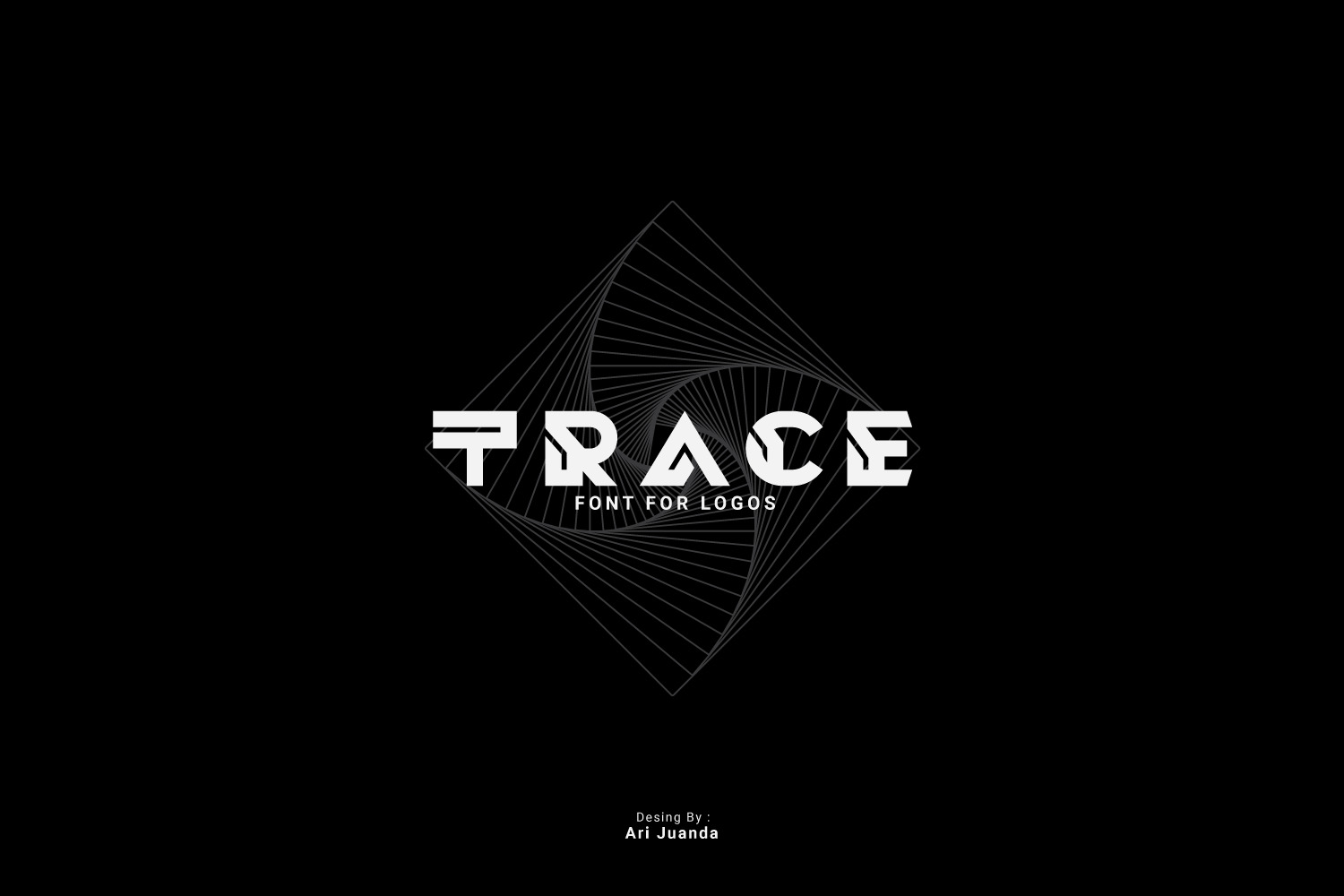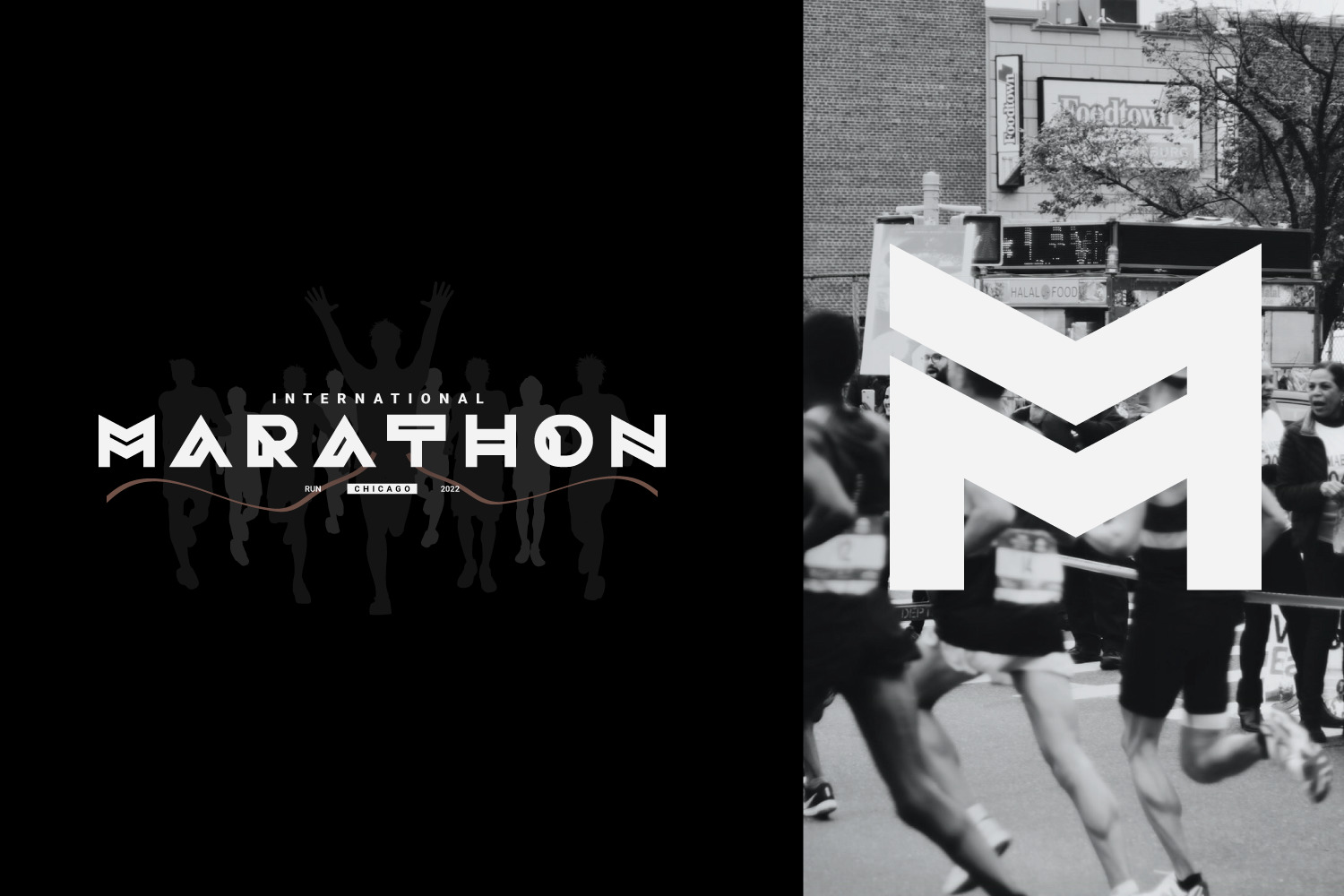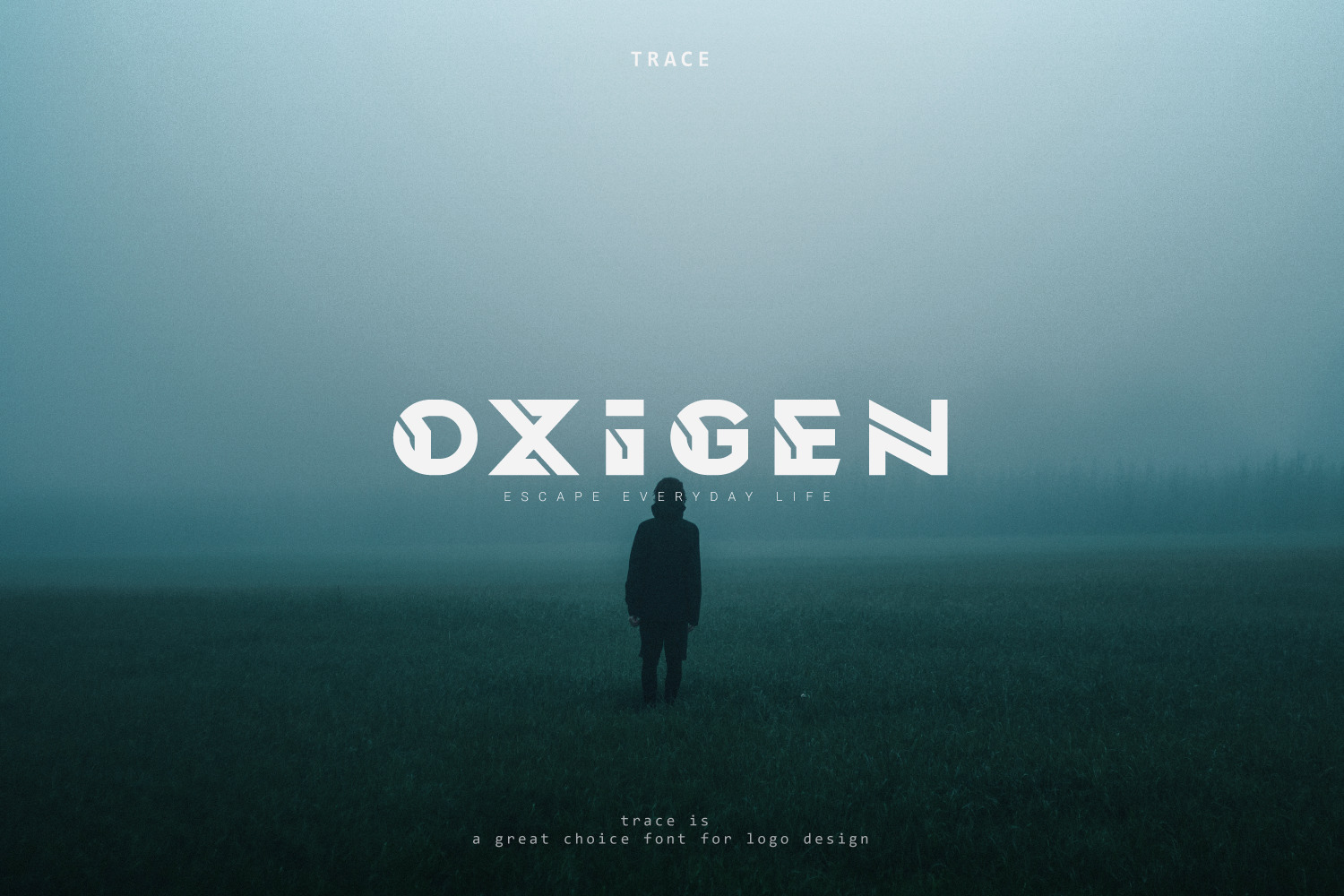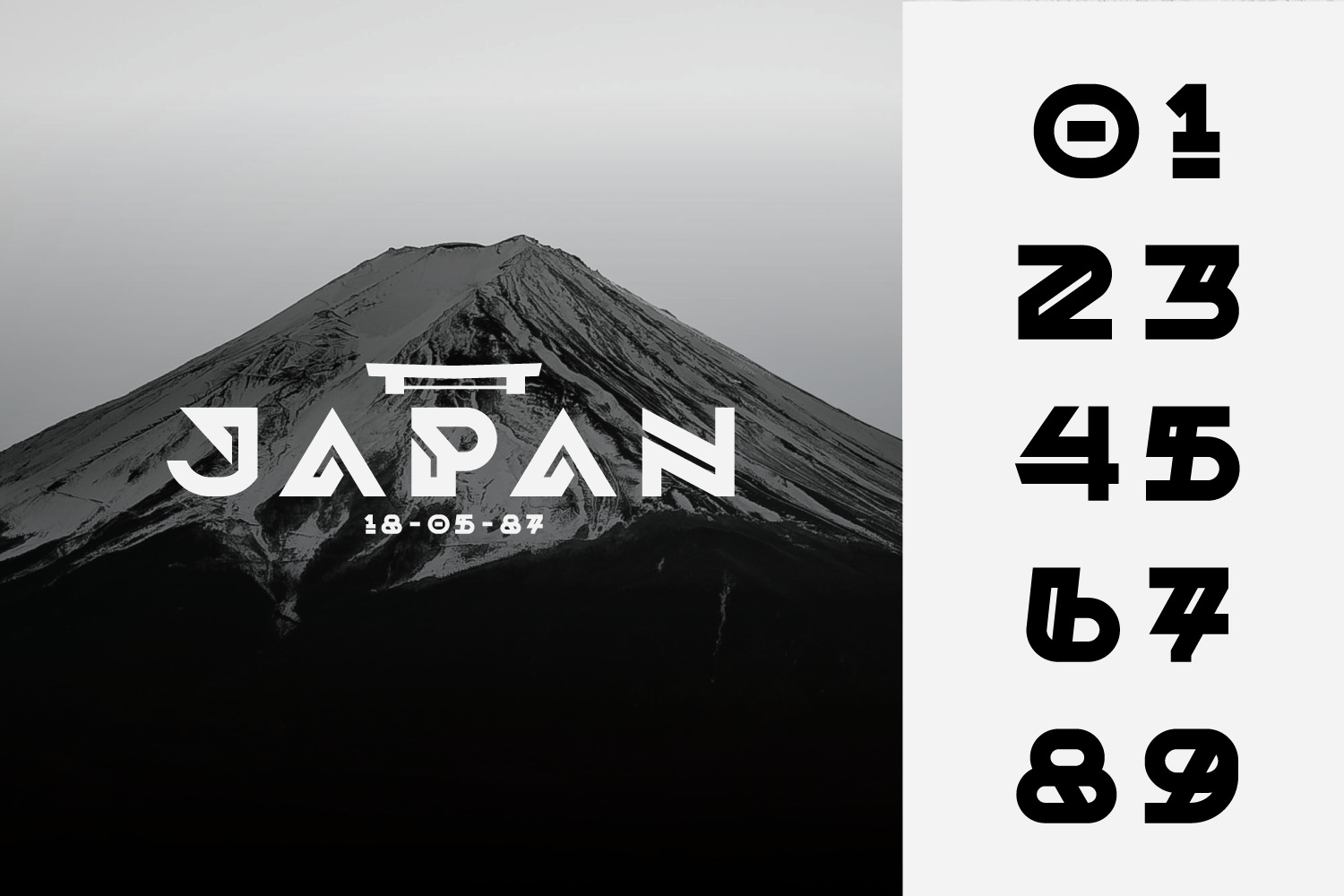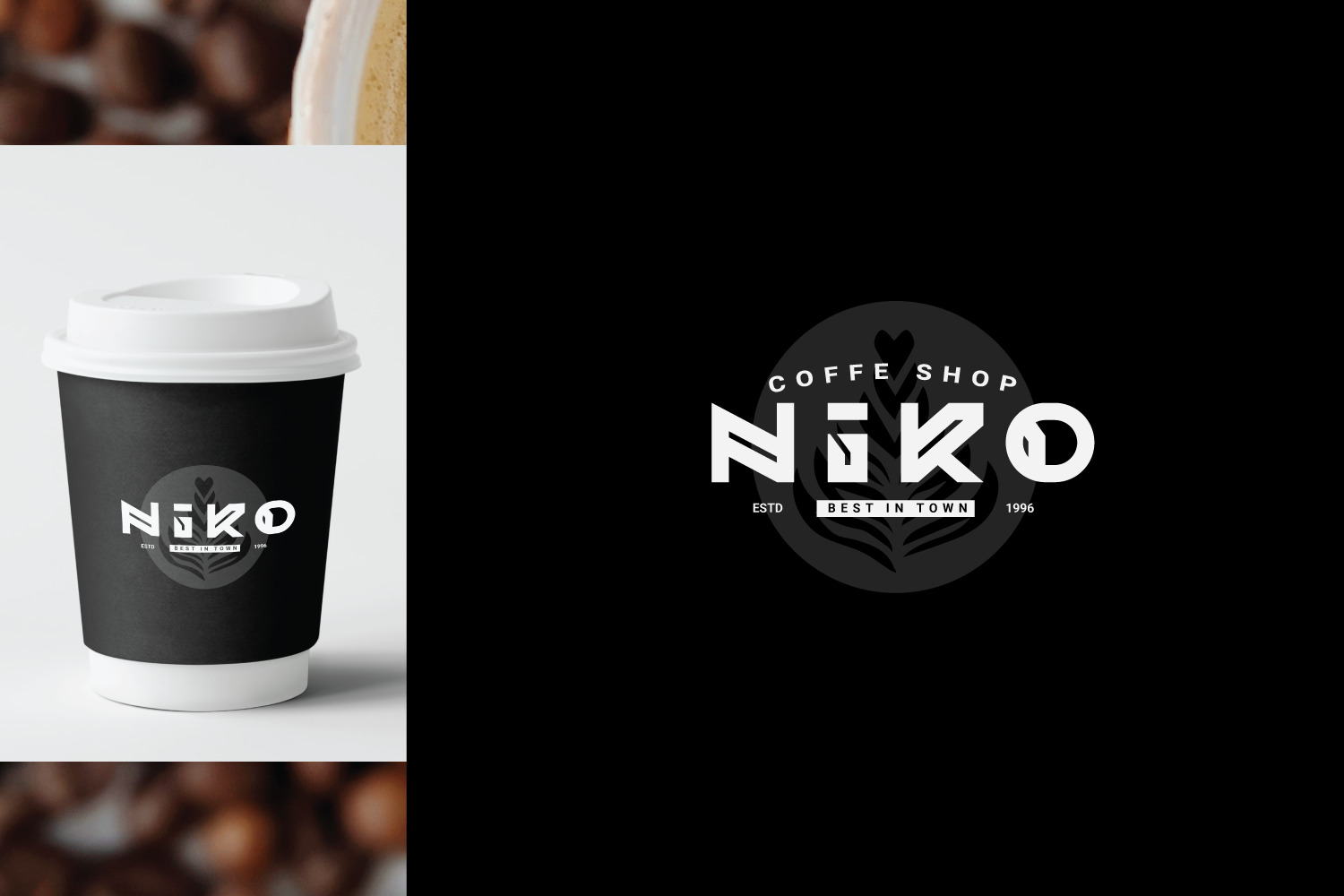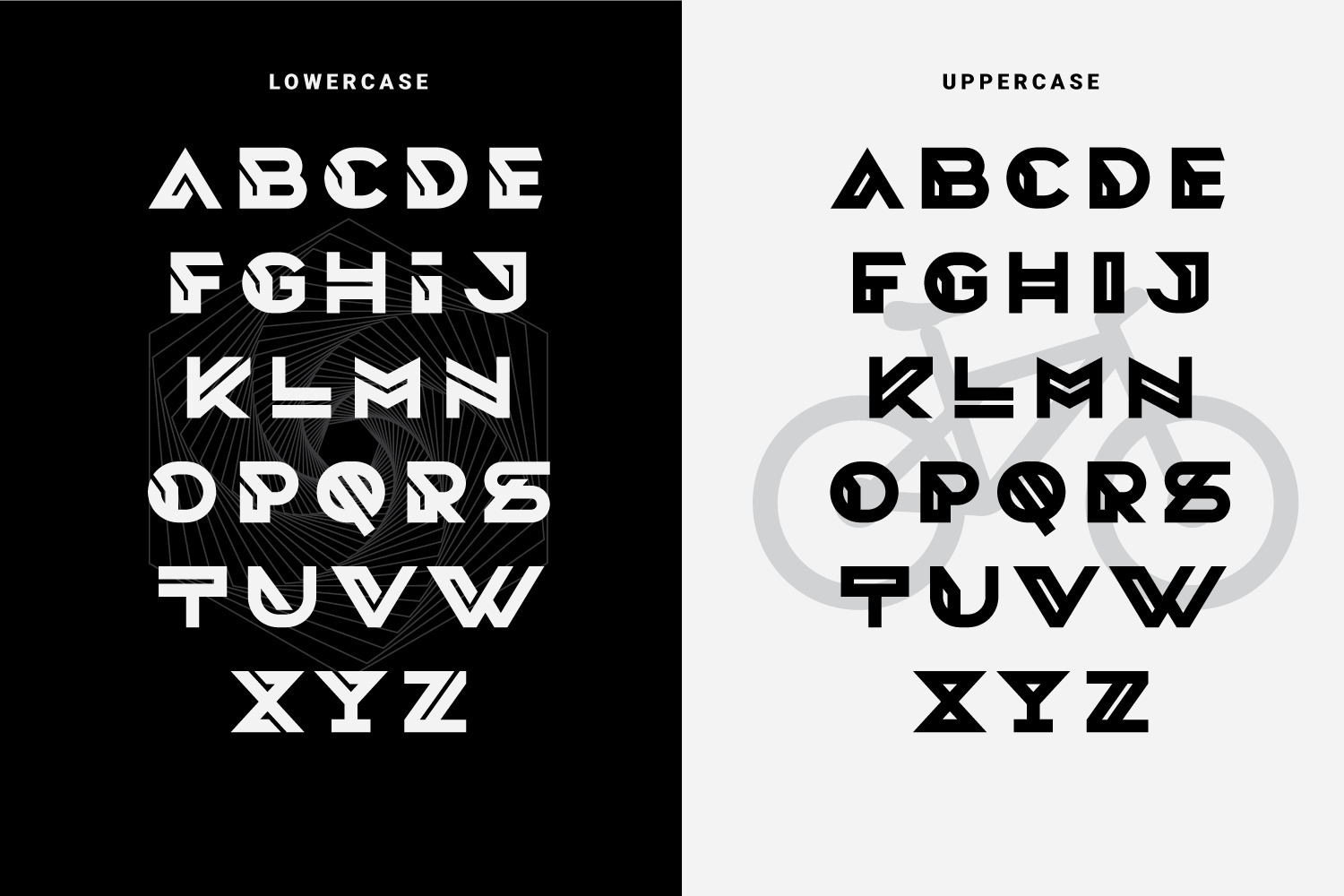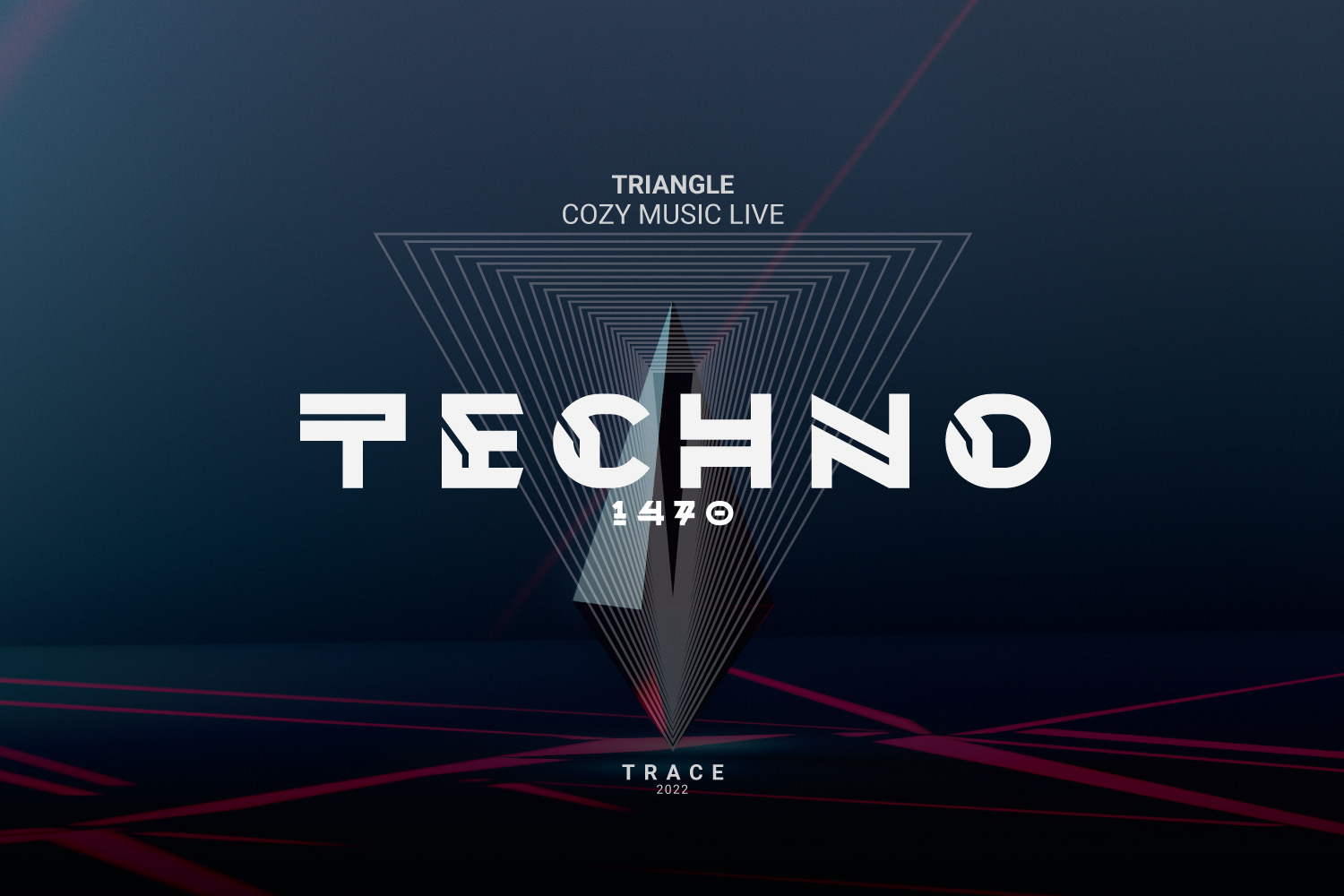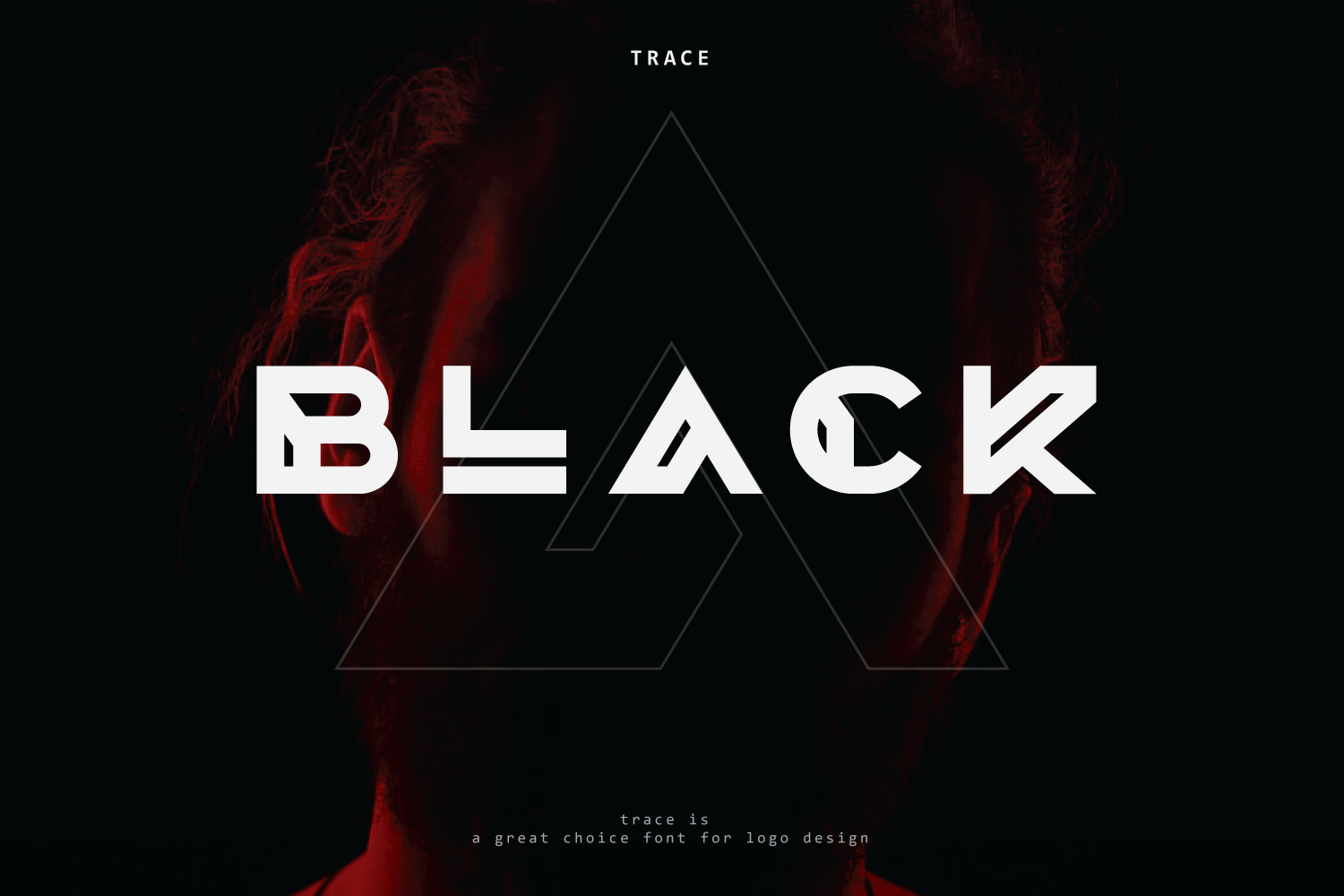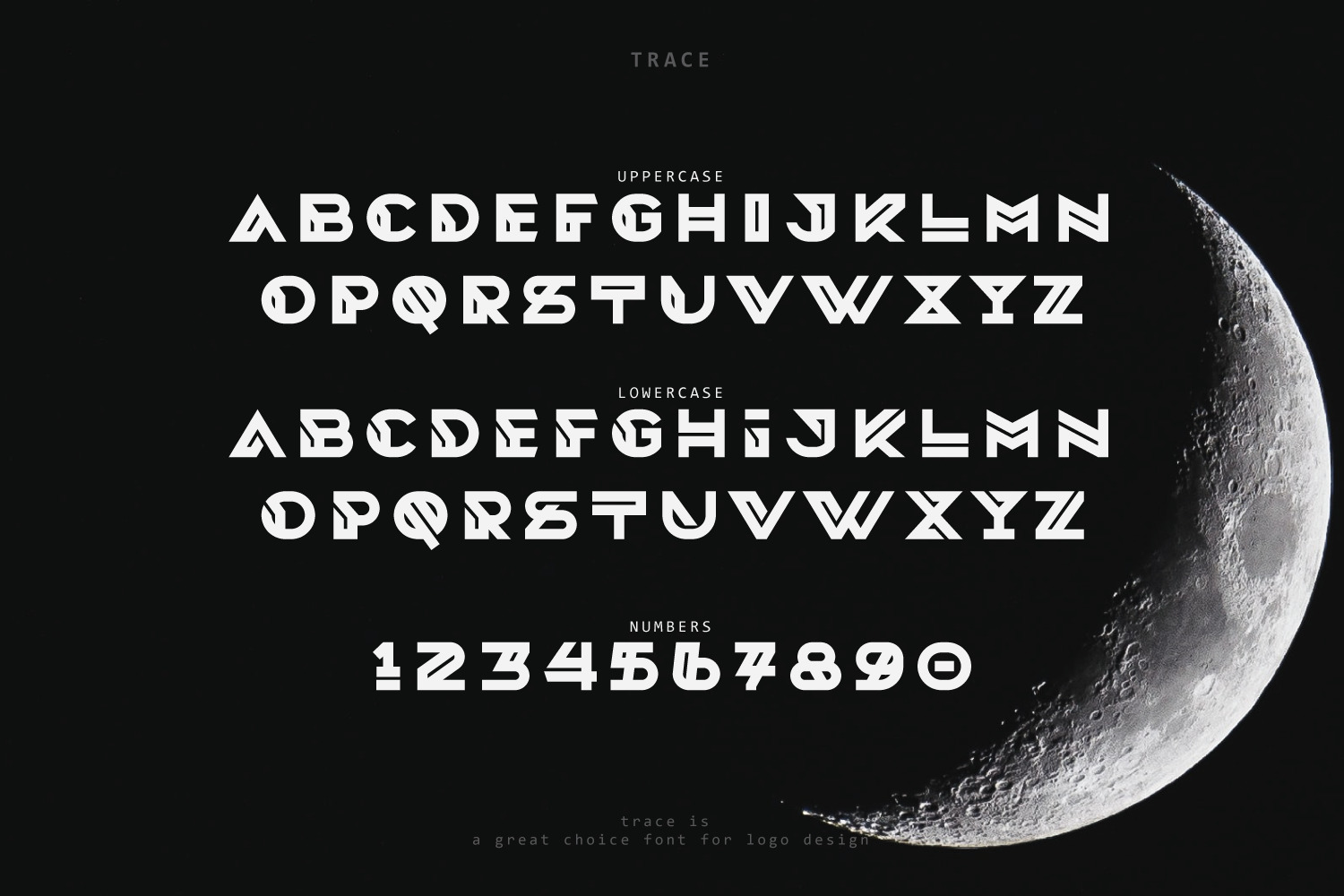
Trace Font
Trace is a great font choice for logo designs. This font is suitable for making word marks, titles, taglines.
1. Trace - Clean San serif font including Uppercase & Lowercase (ALL CAPS) characters,
2. Numbers and Punctuation
3. Support Multi language (Western Europe Latin)